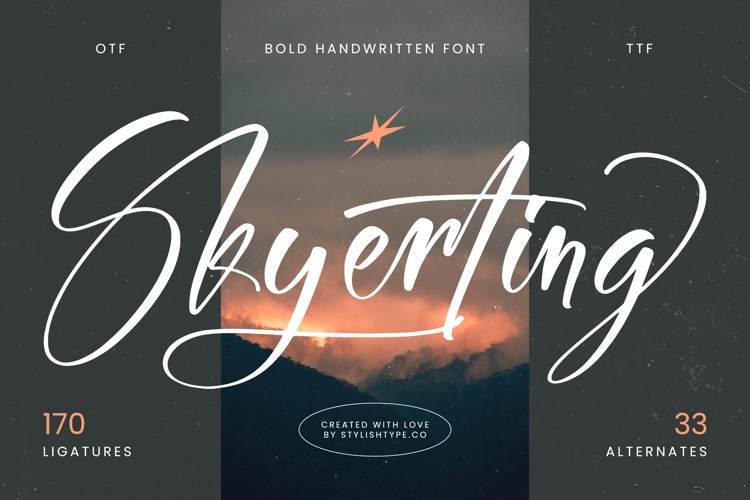
Skyerting - Bold Handwritten Font
Skyerting is a bold handwritten font that blends modern calligraphy with expressive brush strokes. Its flowing rhythm, dynamic ligatures, and stylish alternates make it a versatile typeface for projects that require both impact and elegance. Featuring 170 ligatures and 33 alternates, Skyerting offers endless possibilities for creating unique, custom lettering that stands out.
This font excels in branding. Perfect for logos, boutique shops, artisan products, fashion labels, and lifestyle packaging, Skyerting communicates style and authenticity. Its handwritten boldness ensures that branding projects feel powerful, elegant, and unforgettable, making it suitable for both premium and creative industries.
In editorial and publishing, Skyerting adds artistry and refinement. Magazines, book covers, lifestyle articles, and event flyers benefit from its graceful flow and bold structure. It produces editorial layouts that are stylish, readable, and visually captivating, giving designs an extra edge.
For web typography, this bold handwritten script adapts beautifully across blogs, websites, online shops, and social media platforms. Its dynamic strokes ensure that digital media projects feel fresh, modern, and engaging, making it perfect for creative brands and portfolios.